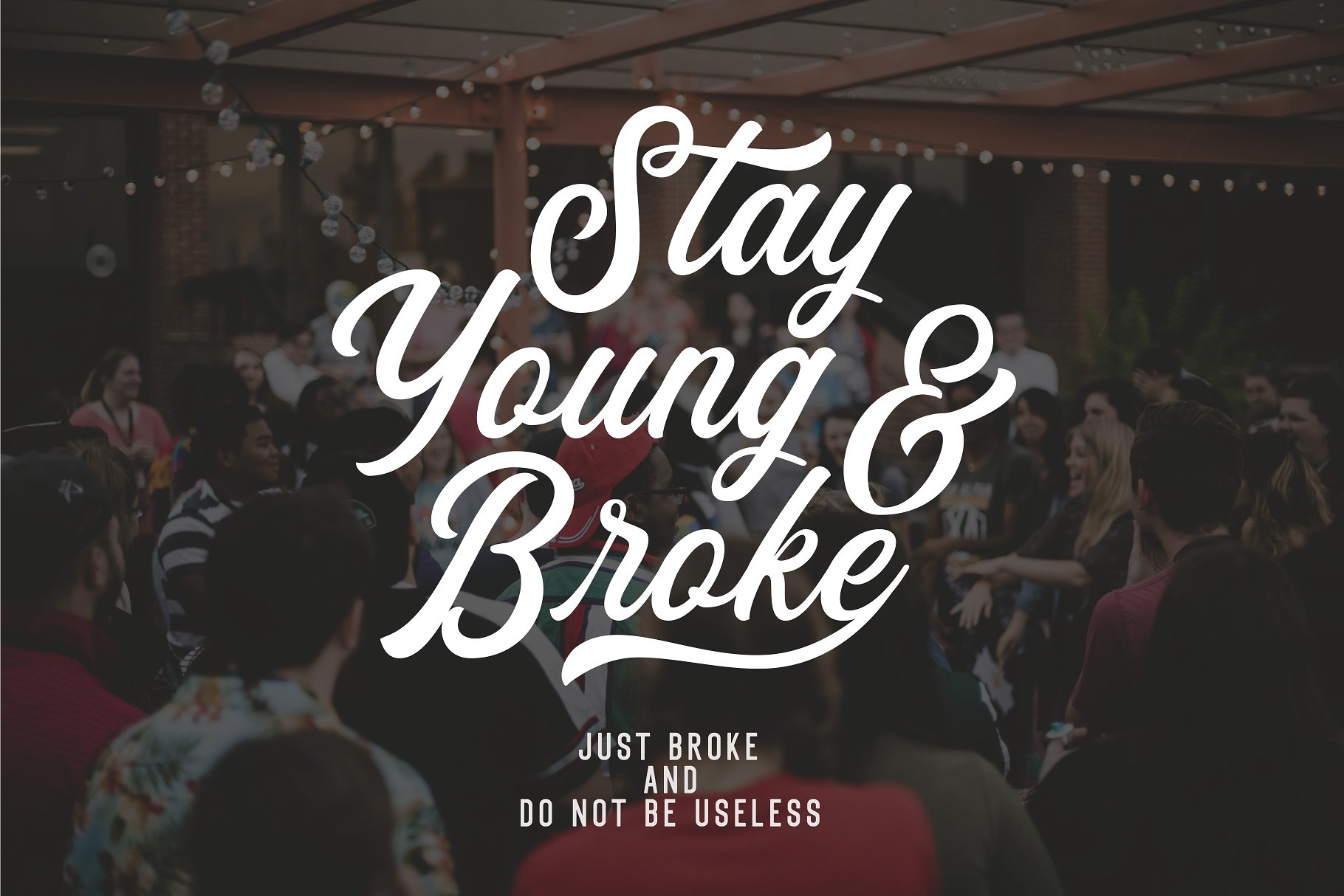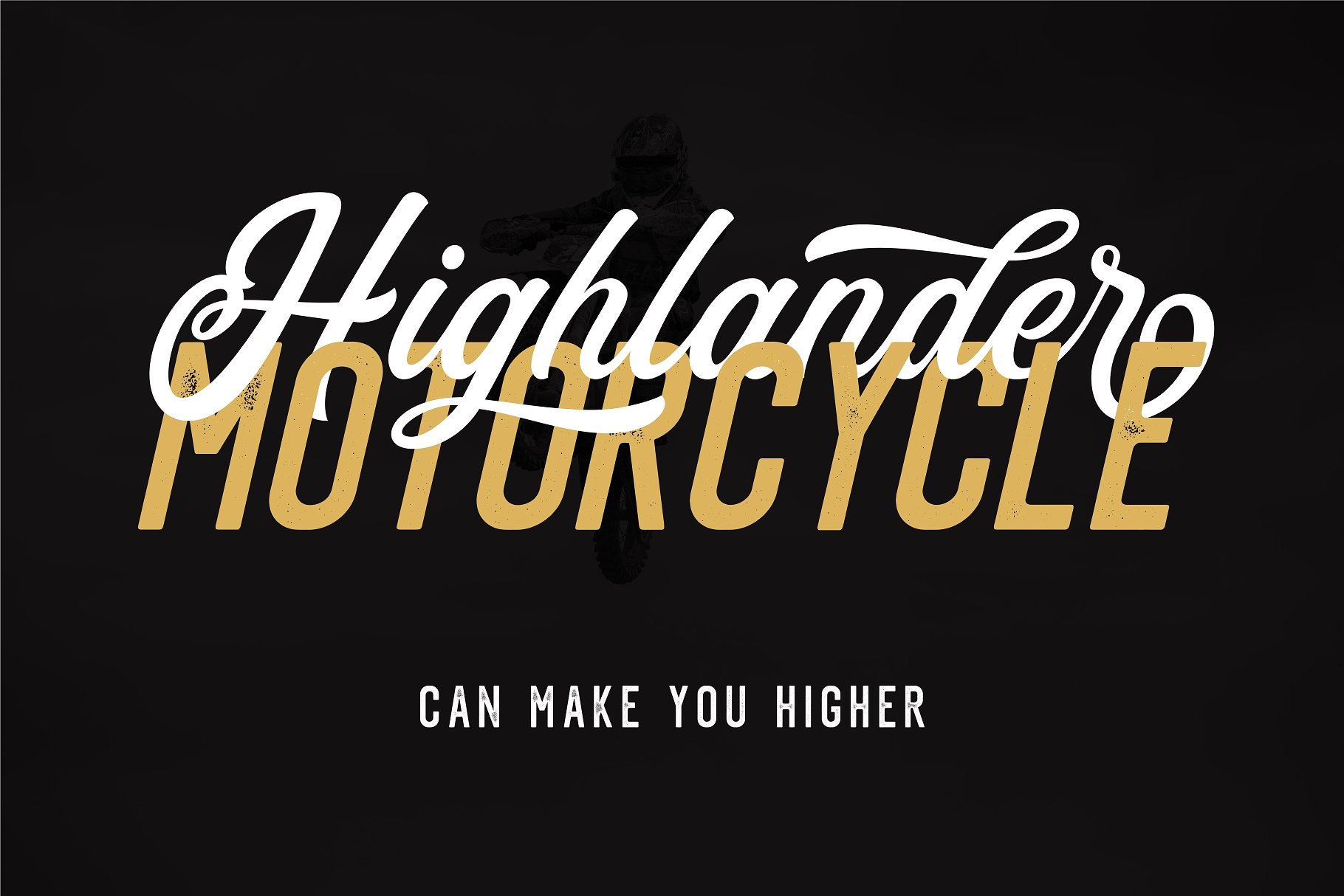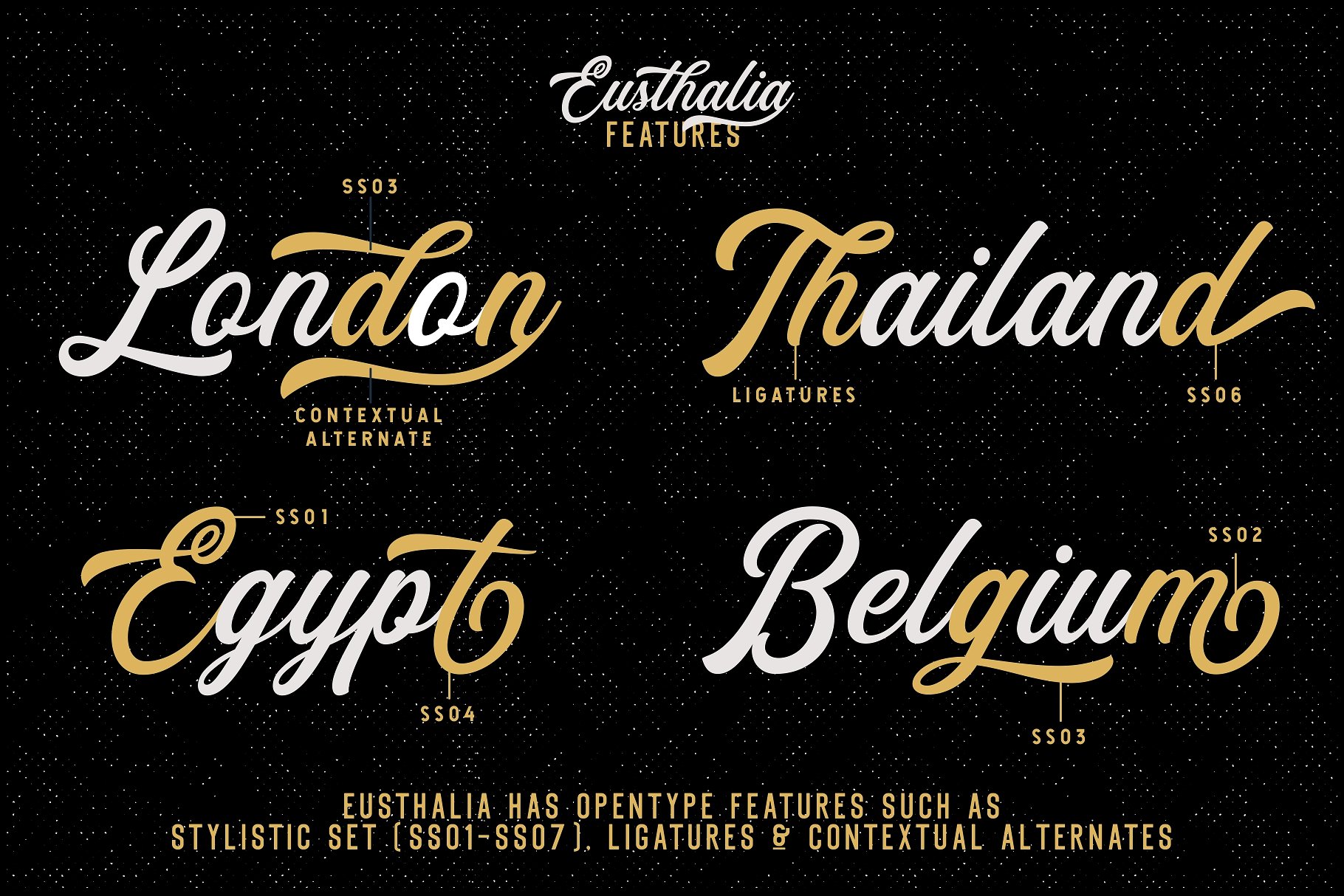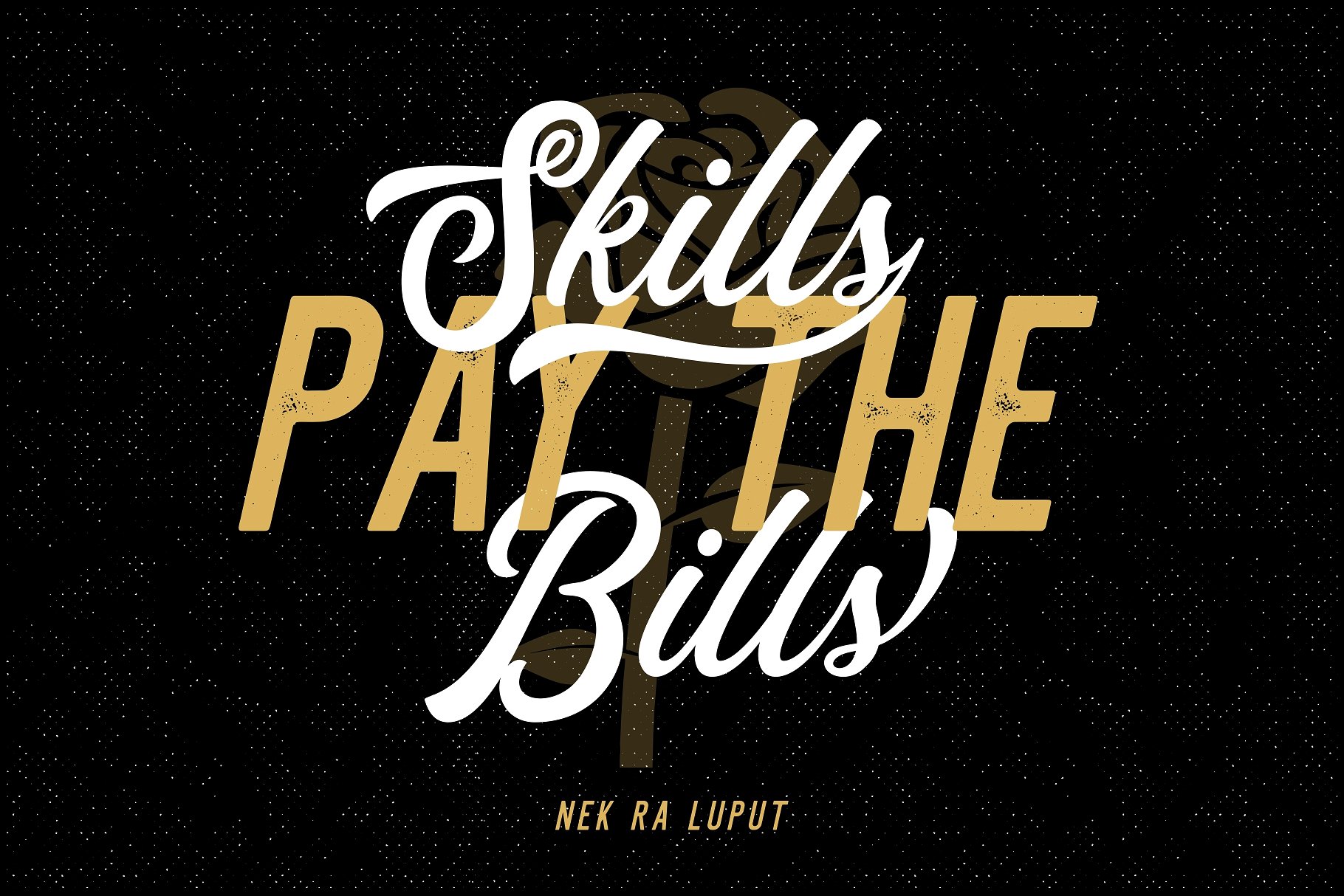
Eusthlia Font Family
An modern font family, perfect font pairing & made with true hand .Introducing Eusthlia Font. Sansterdam is a modern geometric condenced grotesque font family. It’s great for titles, posters, logos. Condensed font allows to include more information in one line. Sansterdam Black has special Deco version with circle uppercase letters and oldstyle numbers for vore vintage feeling. Also Sansterdam has signature script font for more unforgettable combinations!